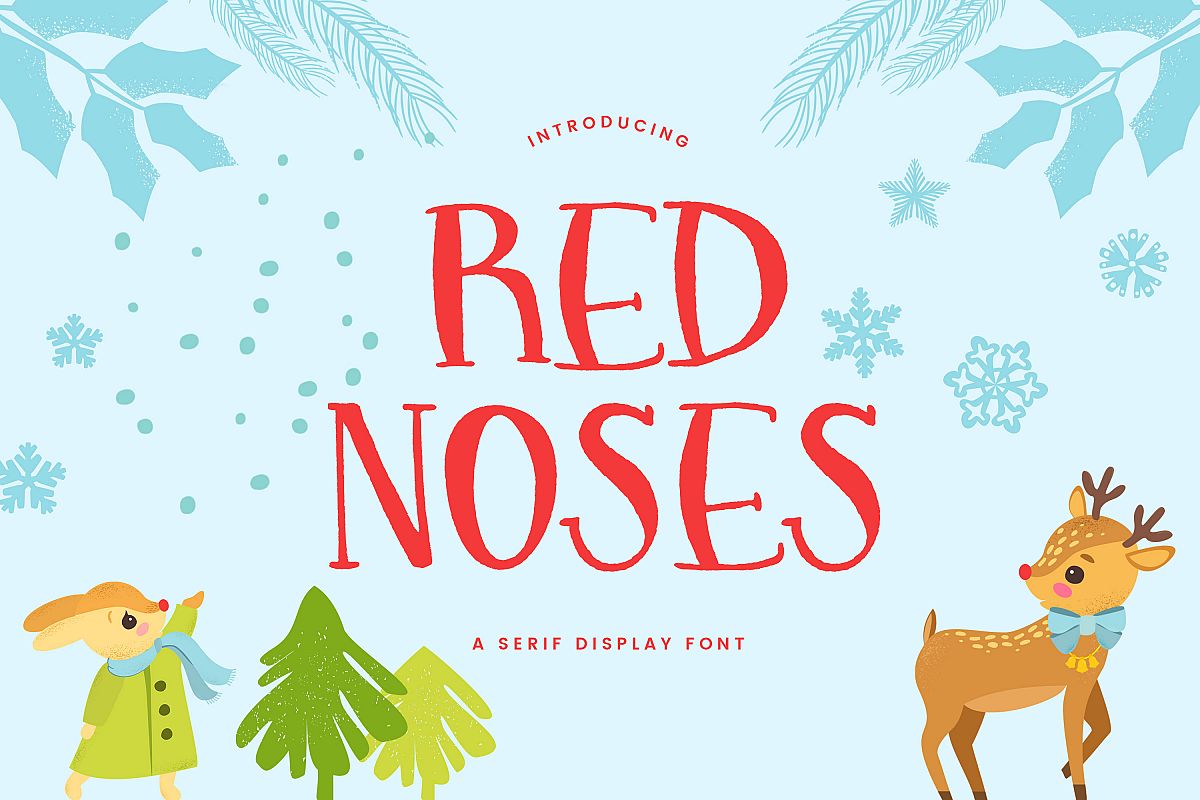
Red Noses
INTRODUCING
Red Noses: a holiday serif display font. This playful font with its clumsy lines will add fun, whimsy and the holiday spirit to your work.